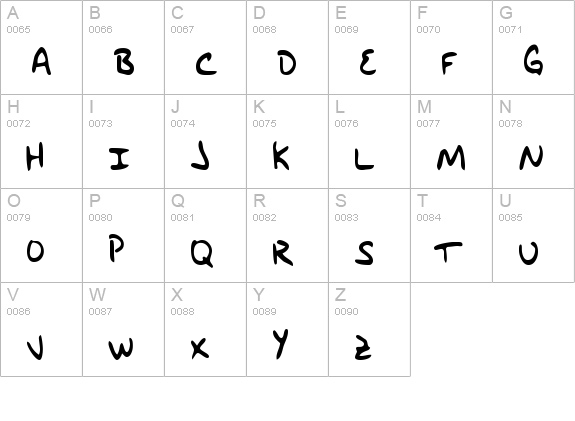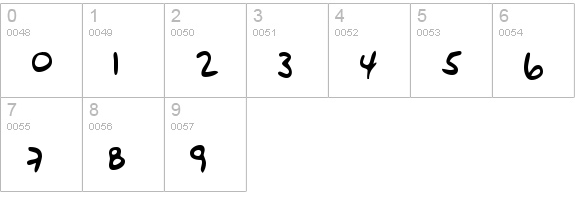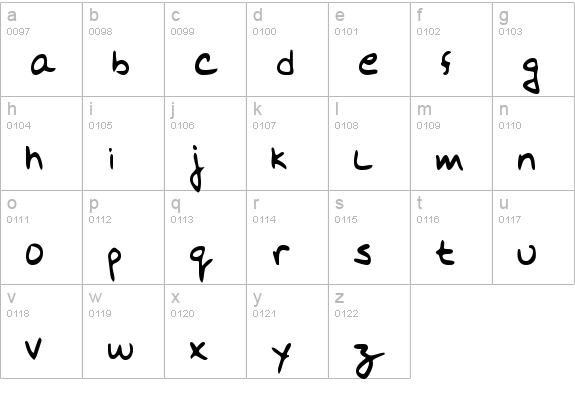
HodgesHand Regular is the standard, neutral variant in the HodgesHand typeface family \xE2\x80\x94 well suited to general body text, paragraphs, and standard typographic work.
HodgesHand Regular font is a charming and versatile typeface that exudes a sense of warmth and friendliness. With its hand-drawn appearance and clean lines, this font is perfect for adding a personal touch to your designs. Whether you're working on invitations, greeting cards, or branding materials, HodgesHand Regular is sure to make your text stand out. The best part? HodgesHand Regular font is completely free to download at FontsMarket.com. This means you can easily add this delightful font to your collection without breaking the bank. So why wait? Download HodgesHand Regular today and elevate your designs with its unique charm and style.